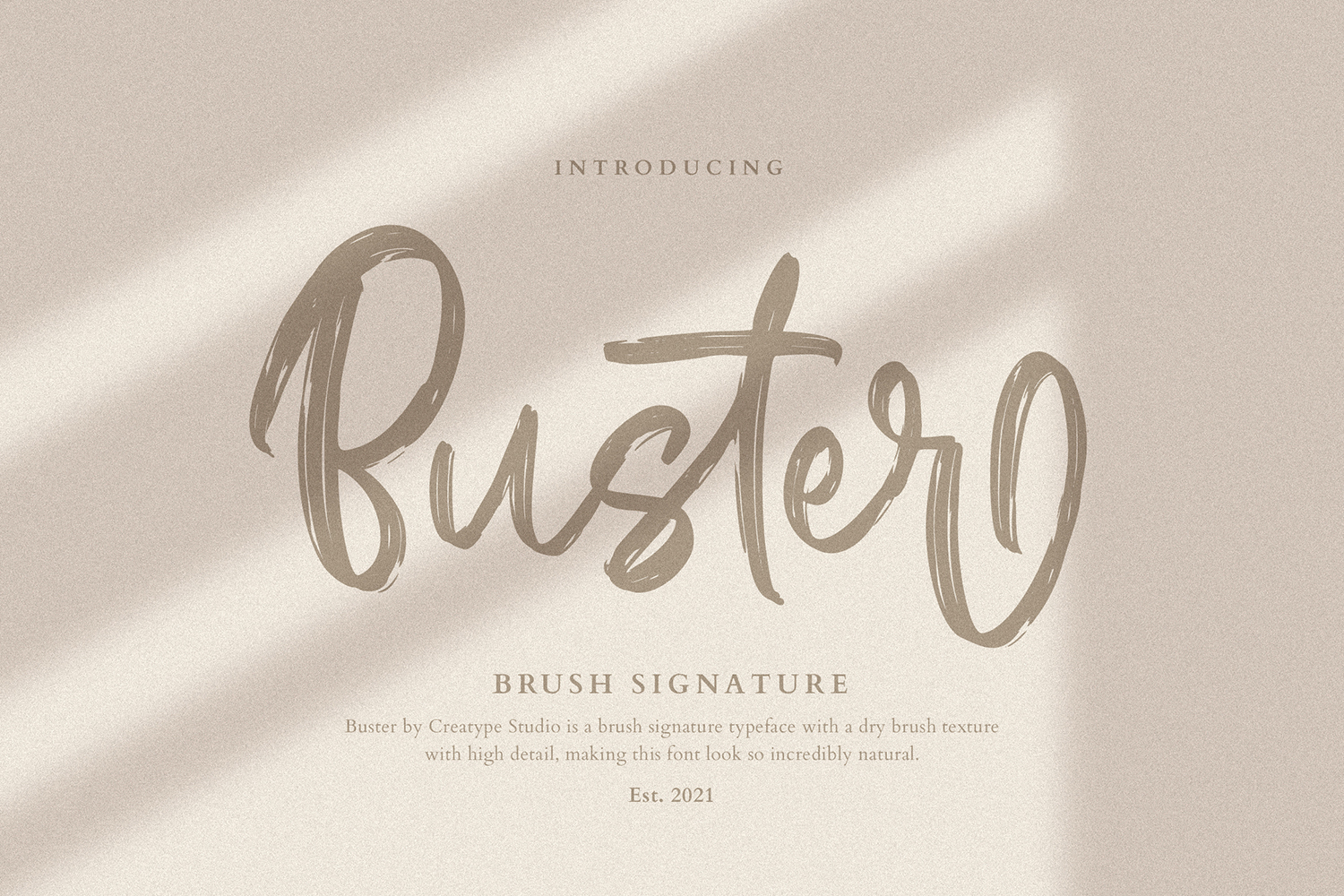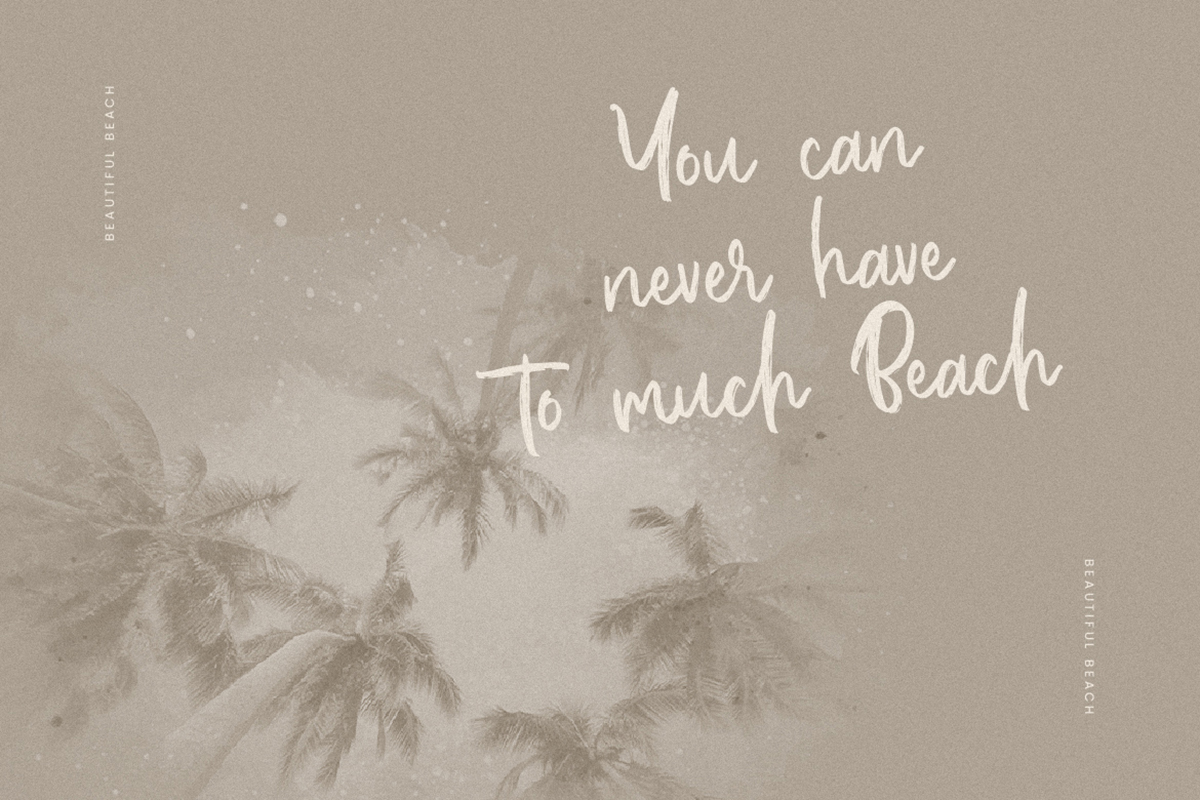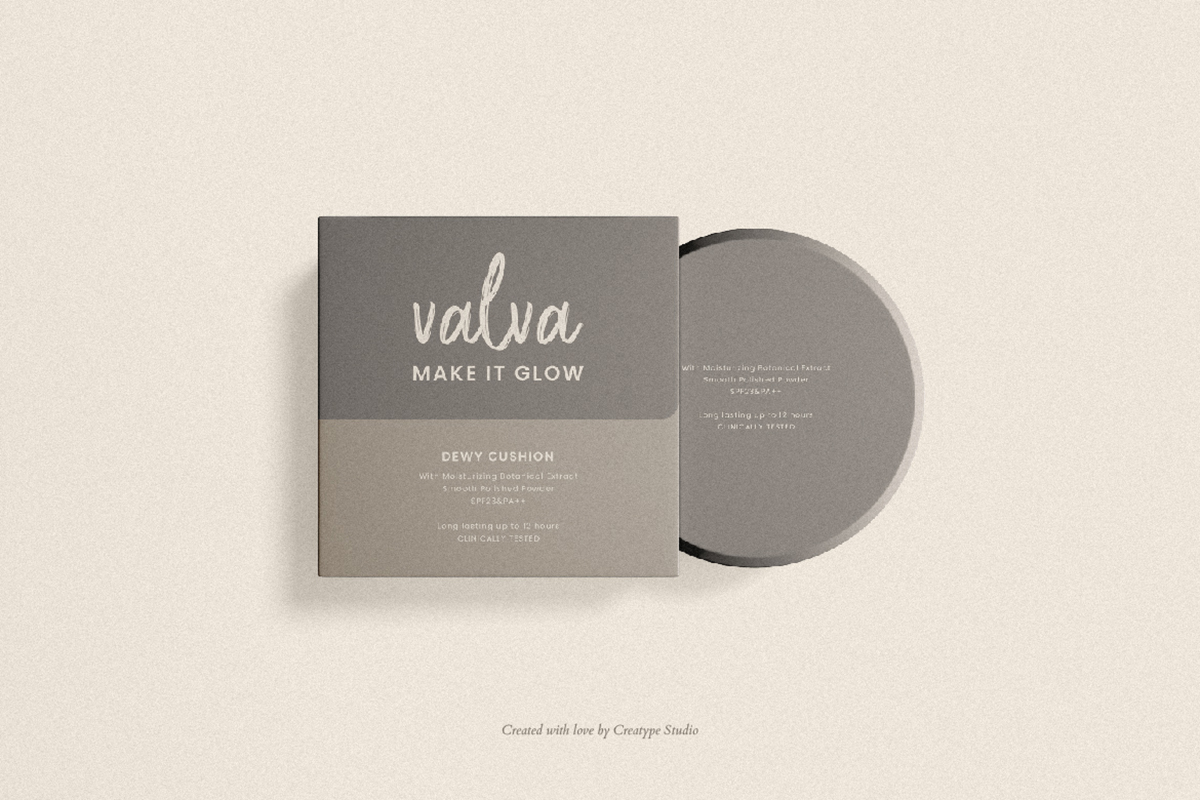
Buster Brush Free Font
Buster Brush Free Font is an interesting typeface that mimics writing with a brush and has an elegant style. This font is very suitable for creating various design projects that require a handwritten font. These can be posters, cards, invitations, flyers, prints, and much more. If you wish to access more features and use it for commercial work please buy the full version.